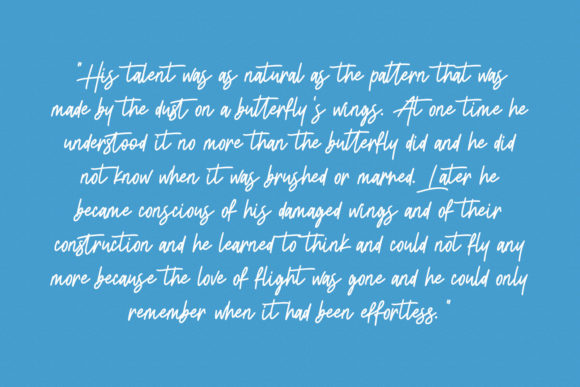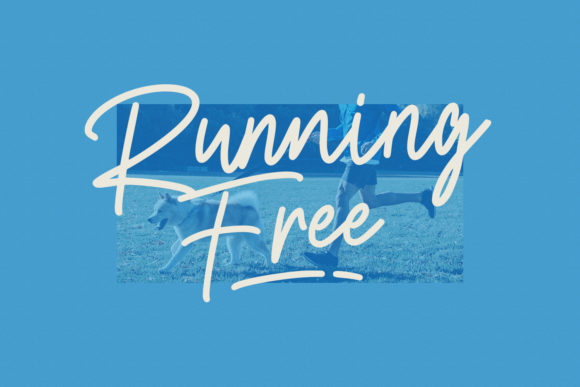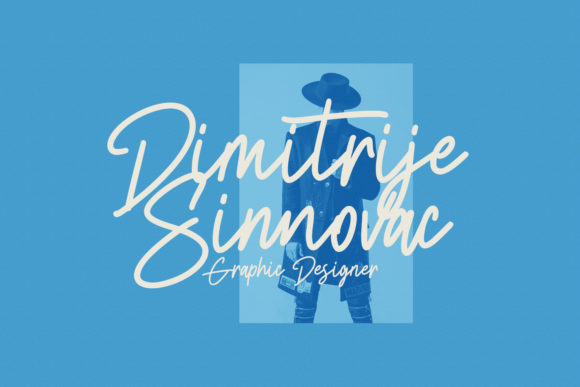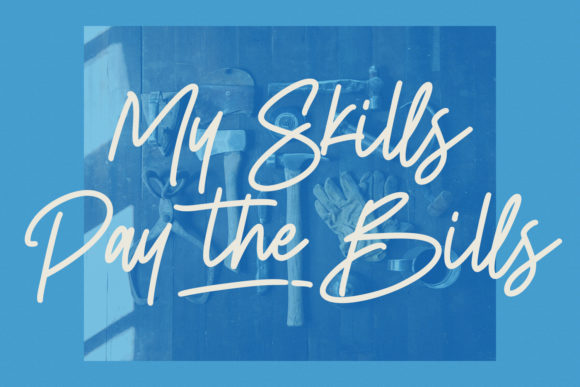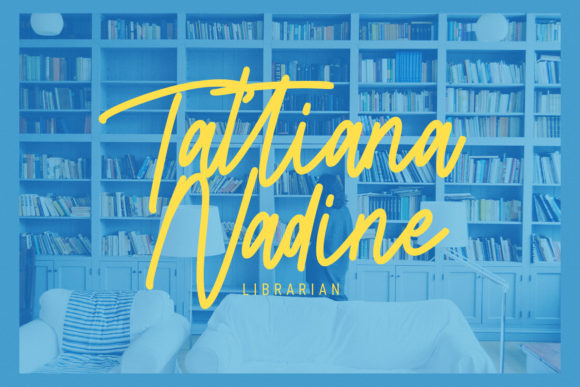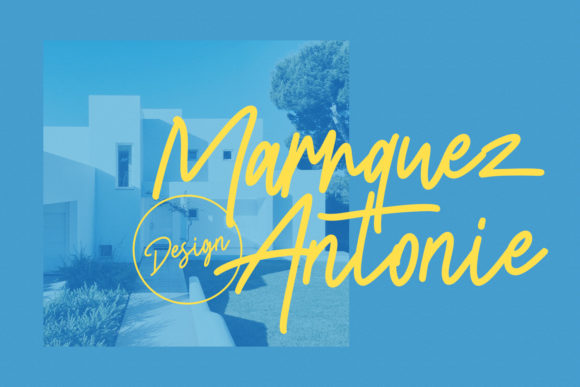
Introducing Gradiattes Script Font: Elevate Your Designs with Elegance
In the world of typography, a font can make or break the aesthetic of a design. For those seeking a touch of elegance and sophistication, Gradiattes Script Font is an exquisite choice. This lovely and delicate script font is specifically crafted for designers, crafters, and anyone looking to add a refreshing look to their creations.
The Beauty of Gradiattes Script Font
Gradiattes Script Font boasts a unique blend of classic and modern elements, making it perfect for a wide range of design applications. Its elegant strokes and refined lines evoke a sense of luxury and poise, ideal for projects that demand a high level of sophistication. Whether you’re working on a branding project, wedding invitation, or packaging design, Gradiattes Script Font is sure to impress.
Key Features of Gradiattes Script Font
- Delicate and Lovely: Gradiattes Script Font features intricate details and subtle nuances that give it a charming and endearing quality.
- Elegant and Classy: The font’s refined lines and classic strokes make it perfect for designs that require a touch of sophistication.
- Refreshing Look: Gradiattes Script Font offers a unique and refreshing aesthetic that’s sure to set your designs apart.
- Versatile: This font is suitable for a wide range of design applications, from digital projects to print materials.
What Makes Gradiattes Script Font Special?
Gradiattes Script Font is more than just a beautiful font – it’s a design solution. Its unique characteristics make it an excellent choice for designers and crafters looking to:
- Create stunning wedding invitations, save-the-dates, and other event materials.
- Develop elegant branding and packaging designs for luxury products.
- Design eye-catching posters, flyers, and brochures for high-end events.
- Add a touch of sophistication to digital projects, such as website headers and social media graphics.
Tips for Using Gradiattes Script Font
To get the most out of Gradiattes Script Font, consider the following tips:
- Pair it with a sans-serif font: Combine Gradiattes Script Font with a clean sans-serif font to create a striking contrast.
- Use it as a headline font: Gradiattes Script Font is perfect for headlines and titles, where its elegance and sophistication can shine.
- Experiment with colors: Try pairing Gradiattes Script Font with a range of colors to find the perfect combination for your design.
Gradiattes Script Font is a beautiful and elegant script font that’s sure to elevate your designs. With its delicate strokes, refined lines, and refreshing aesthetic, it’s the perfect choice for designers and crafters looking to add a touch of sophistication to their creations. Whether you’re working on a luxury branding project or a special event, Gradiattes Script Font is an excellent choice.